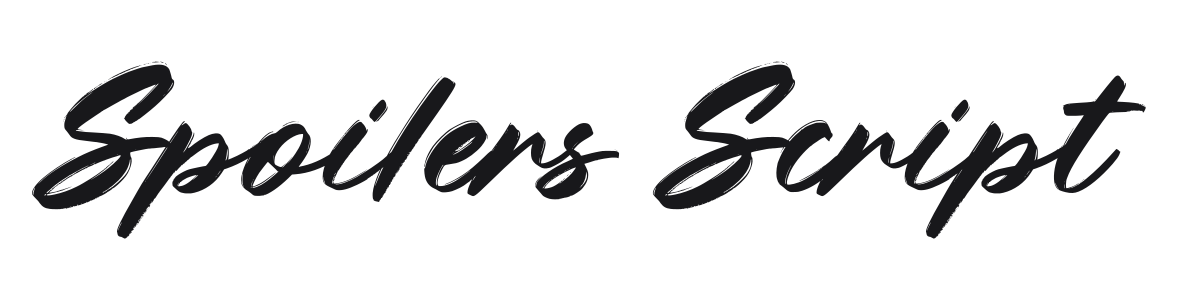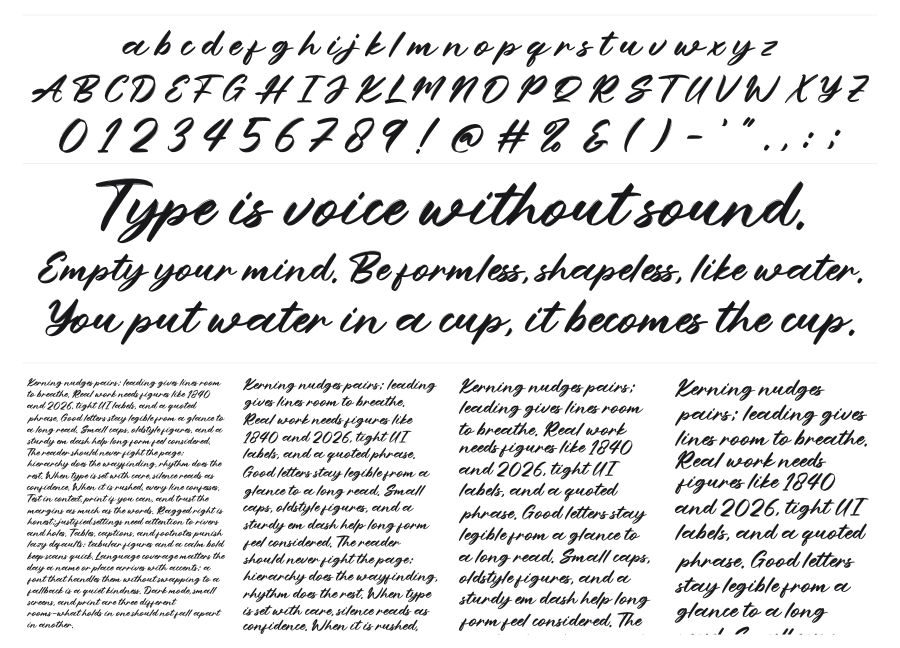
Spoilers Script
Spoilers Script is a bold contemporary brush script with an authentic hand-lettered quality and lively baseline movement. Thick swelling downstrokes contrast with thin hairline upstrokes, and the ink-textured finish makes it feel genuinely written rather than drawn. It works well at large sizes for logos, packaging, and editorial headlines.